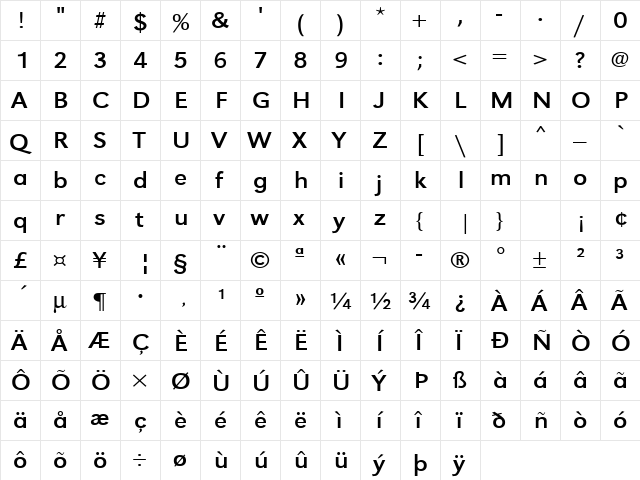
URWGroteskTExtWid Regular Font Preview
URWGroteskTExtWid Regular
URWGroteskTExtWid Regular Font Details
Design Context for URWGroteskTExtWid Typeface
URWGroteskTExtWid has the quiet confidence of well-executed sans-serif typography: versatile, unobtrusive, and dependable at any size.
Font Pairing: Works well alongside a characterful serif or display font that can carry the expressive load while URWGroteskTExtWid handles the functional copy.
Pro Tip: Use URWGroteskTExtWid for UI labels, navigation, and short-form body copy where clean legibility is the priority.